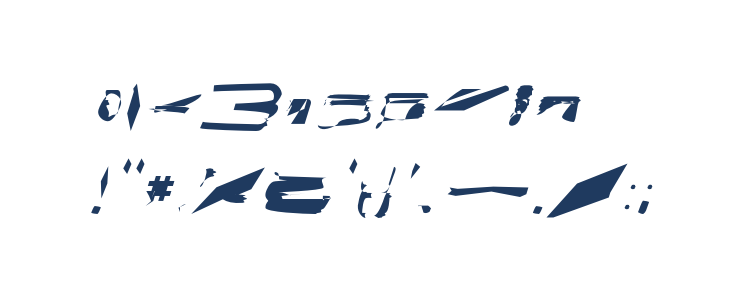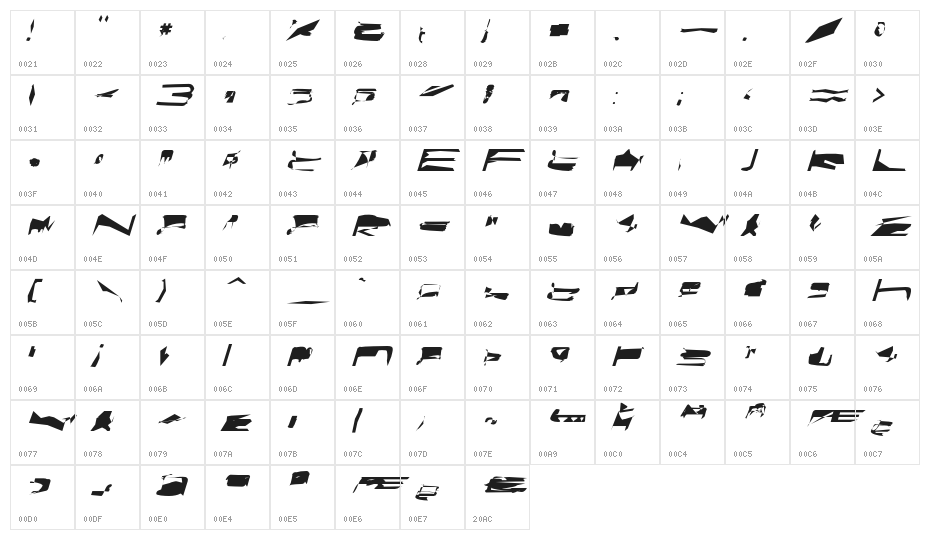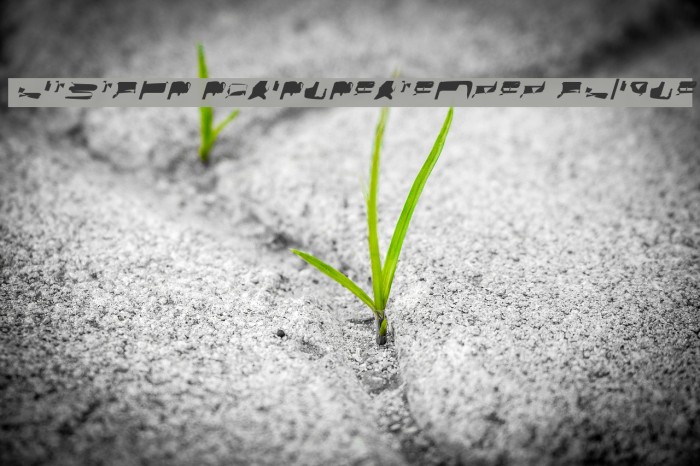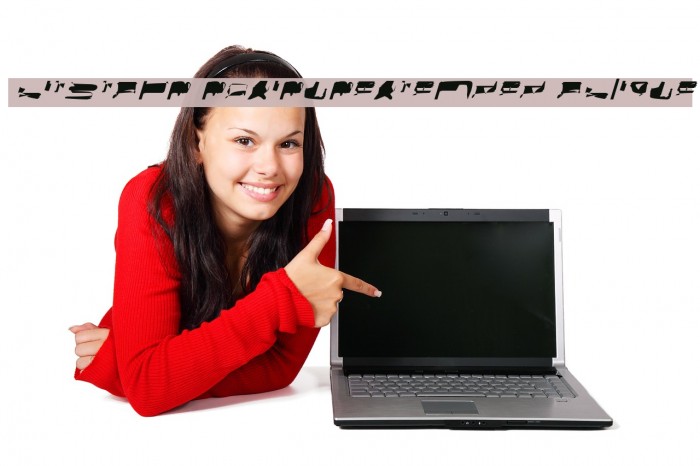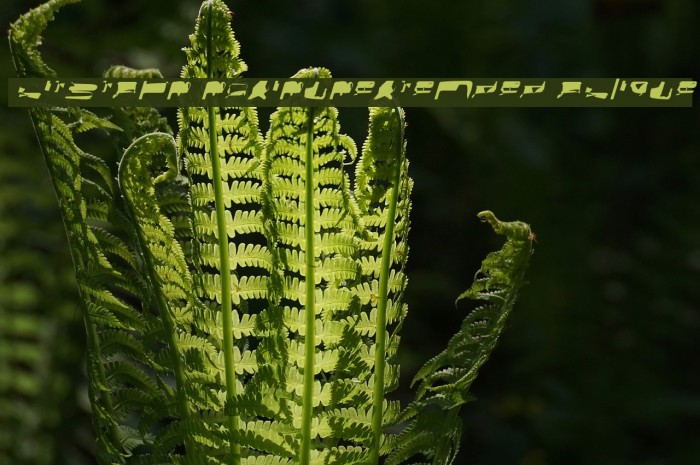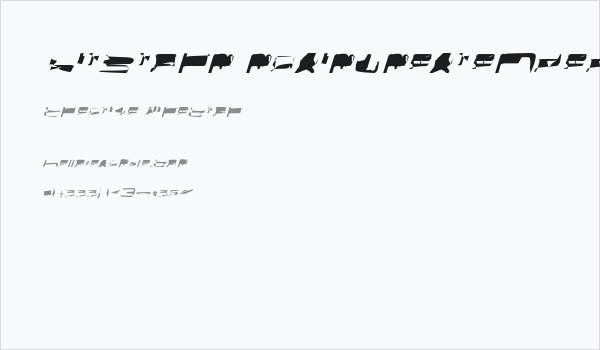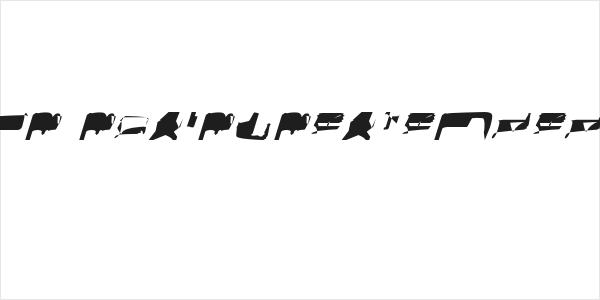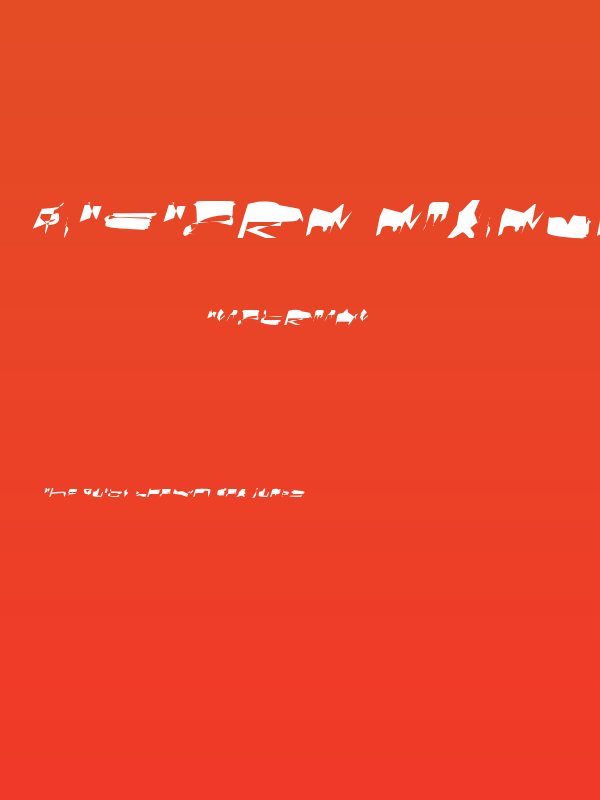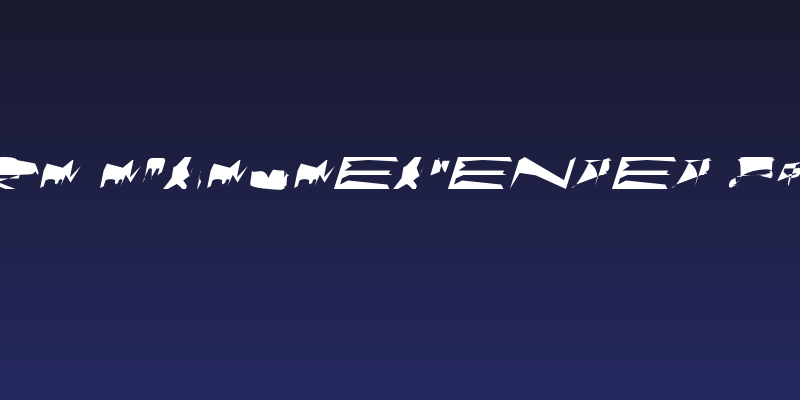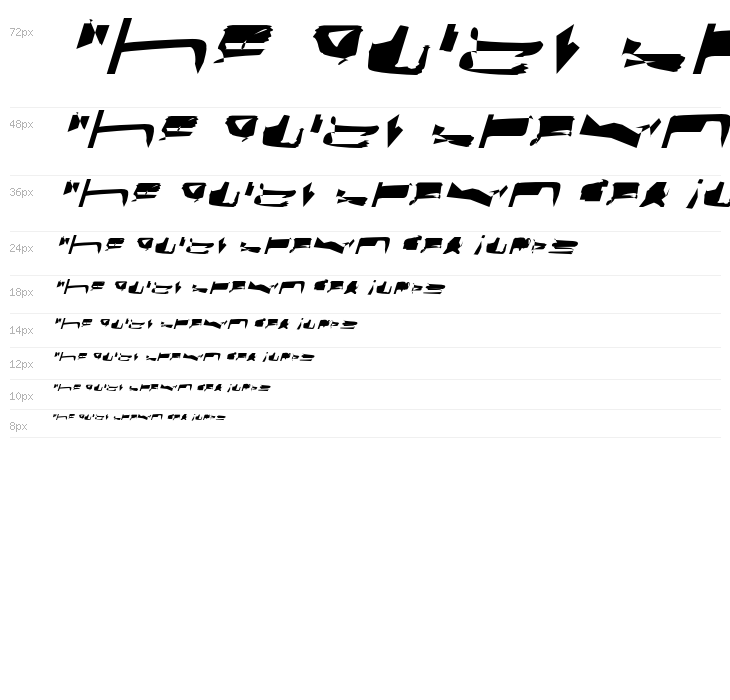
bitstorm maximumextended oblique Font
bitstorm maximumextended oblique Description
This font features a highly stylized and abstract design, characterized by sharp, angular shapes and a dynamic, fragmented appearance. The letters are heavily slanted, giving a sense of motion and energy. The strokes are bold and irregular, with varying thickness that creates a striking visual contrast. This font is designed to stand out and make a bold statement, suitable for attention-grabbing headlines or artistic projects. The unique design elements make it less suitable for body text but ideal for creative and expressive uses.
| Overall Style | Modern, Artistic |
| Use Case | Headlines, Logos, Artistic projects |
| Proposed Projects | Ideal for album covers, posters, video game graphics, and other creative projects where a bold, artistic statement is desired. |